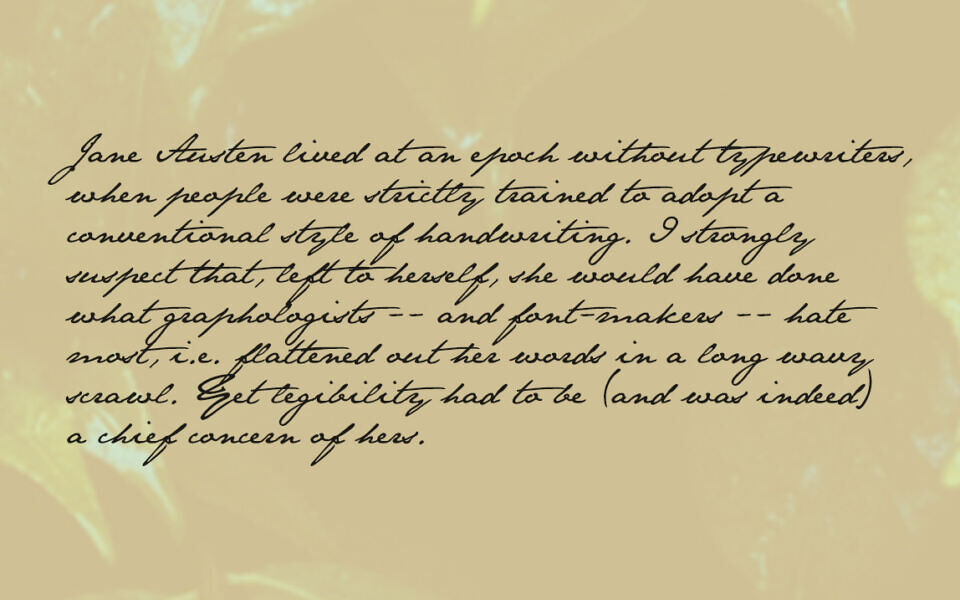
The Jane Austen Font, inspired by the elegant handwriting of the renowned novelist, is a delicate, serif typeface exuding Regency-era charm. Its flowing, cursive letterforms, with intricate swashes and ligatures, evoke sophistication and romance, ideal for invitations, book covers, or literary projects.
Uppercase and lowercase letters blend seamlessly, with numerals and basic symbols maintaining a vintage aesthetic. It’s best for decorative headings, pairing beautifully with soft, neutral color palettes for timeless appeal.